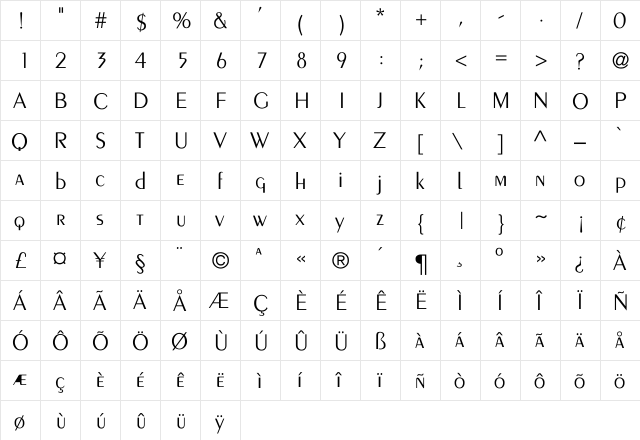
Peignot-Light-Normal Regular
Design Context for Peignot-Light-Normal Typeface
Peignot-Light-Normal is a composed and adaptable typeface that performs quietly and consistently across a wide range of design contexts. The delicate stroke weight brings airiness and refinement to layouts.